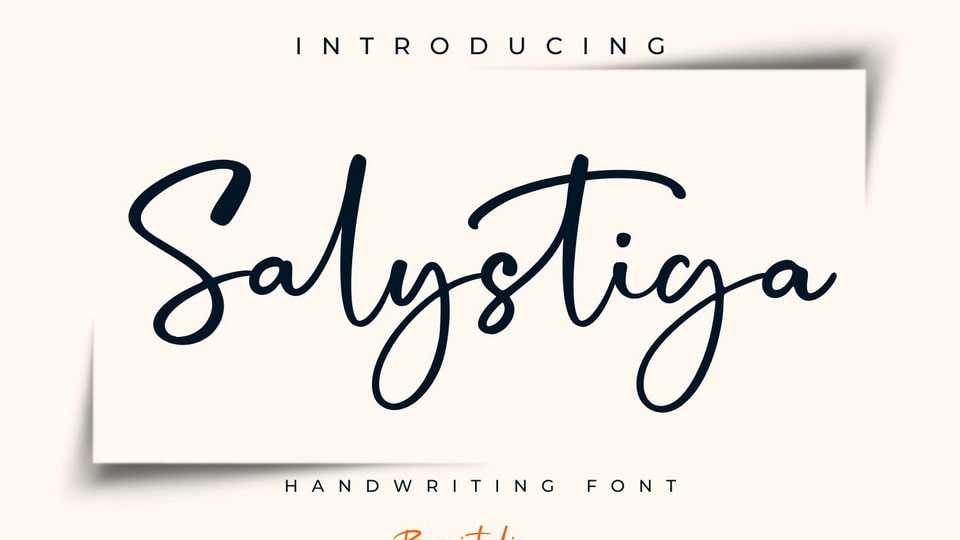
Download Salystiga font, a signature-style handwritten typeface that feels effortless and genuine. Its casual lines and lightly flowing forms give it a breezy, carefree character.